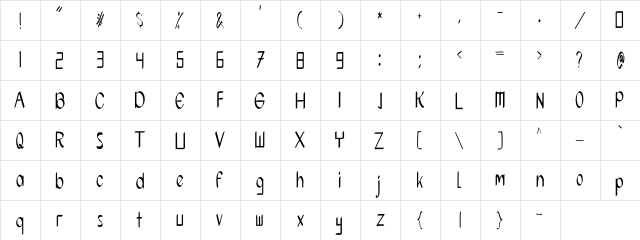
Khameumeut Regular Font Preview
Khameumeut Regular
Design Context for Khameumeut Typeface
Khameumeut offers clean, dependable letterforms without strong stylistic allegiance, making it a practical choice for designers who need flexibility.